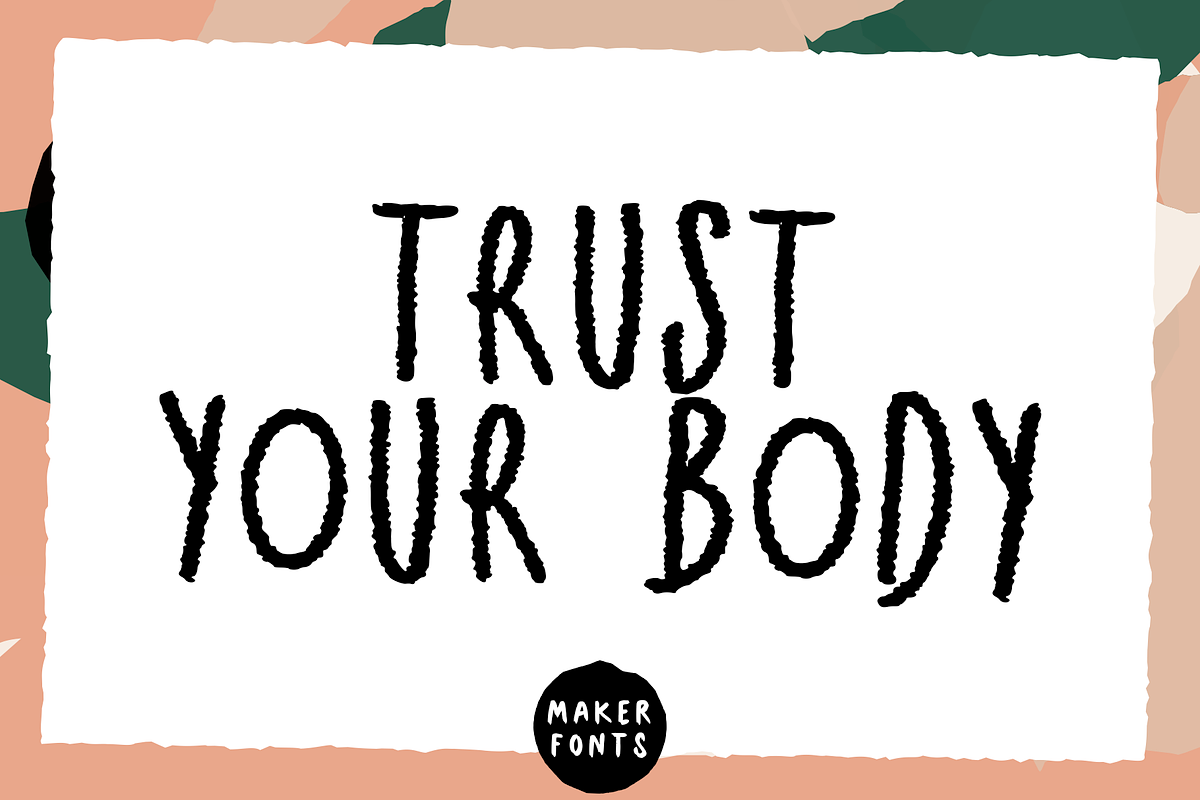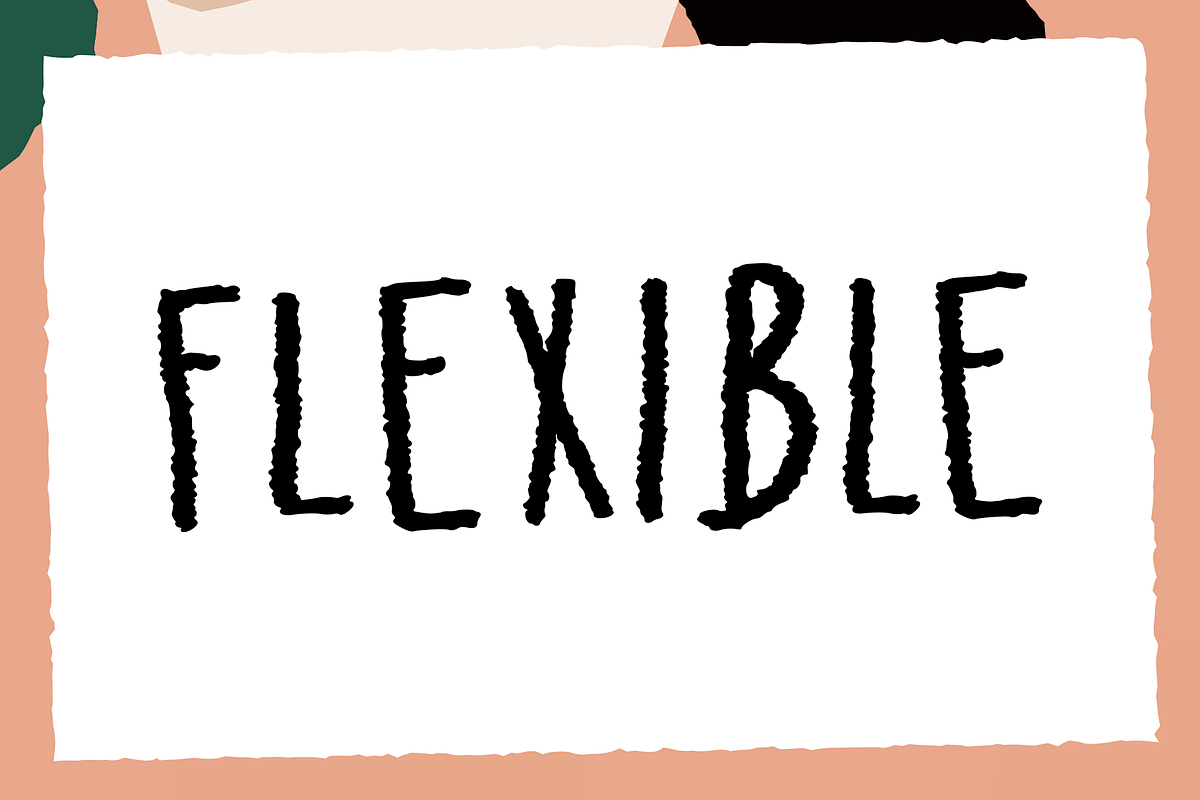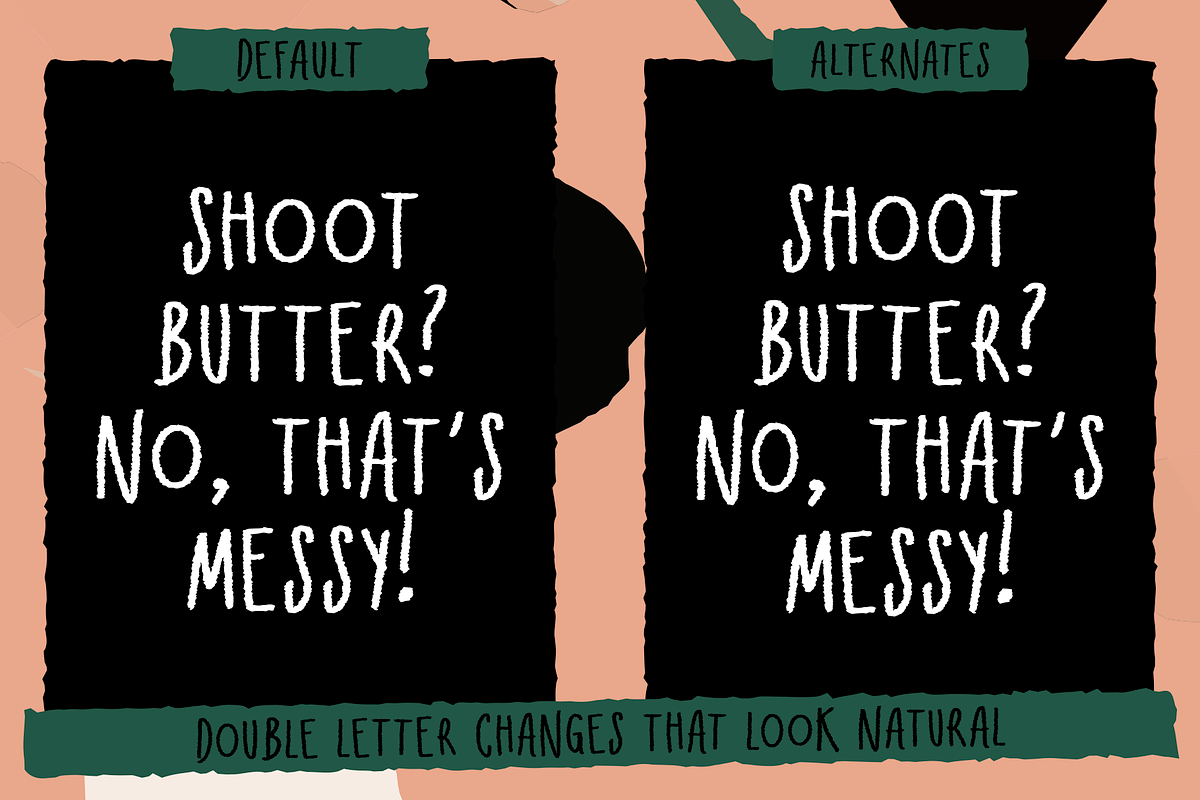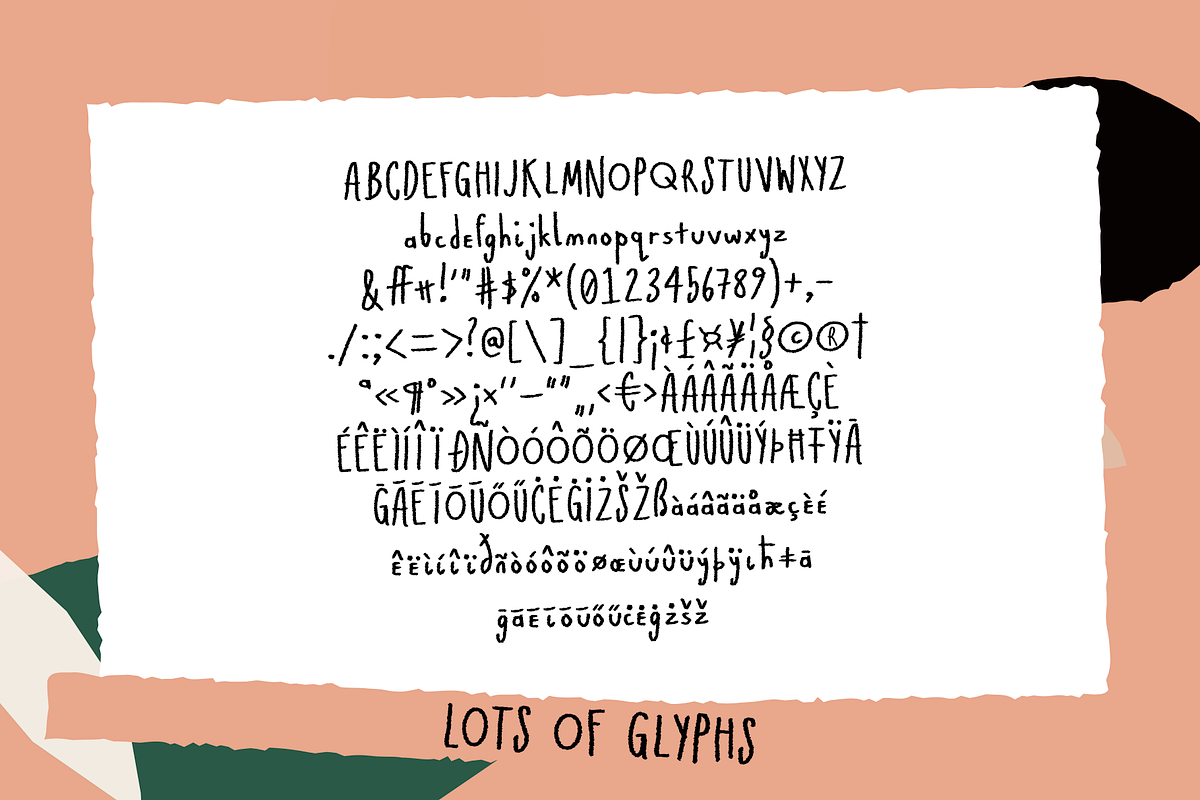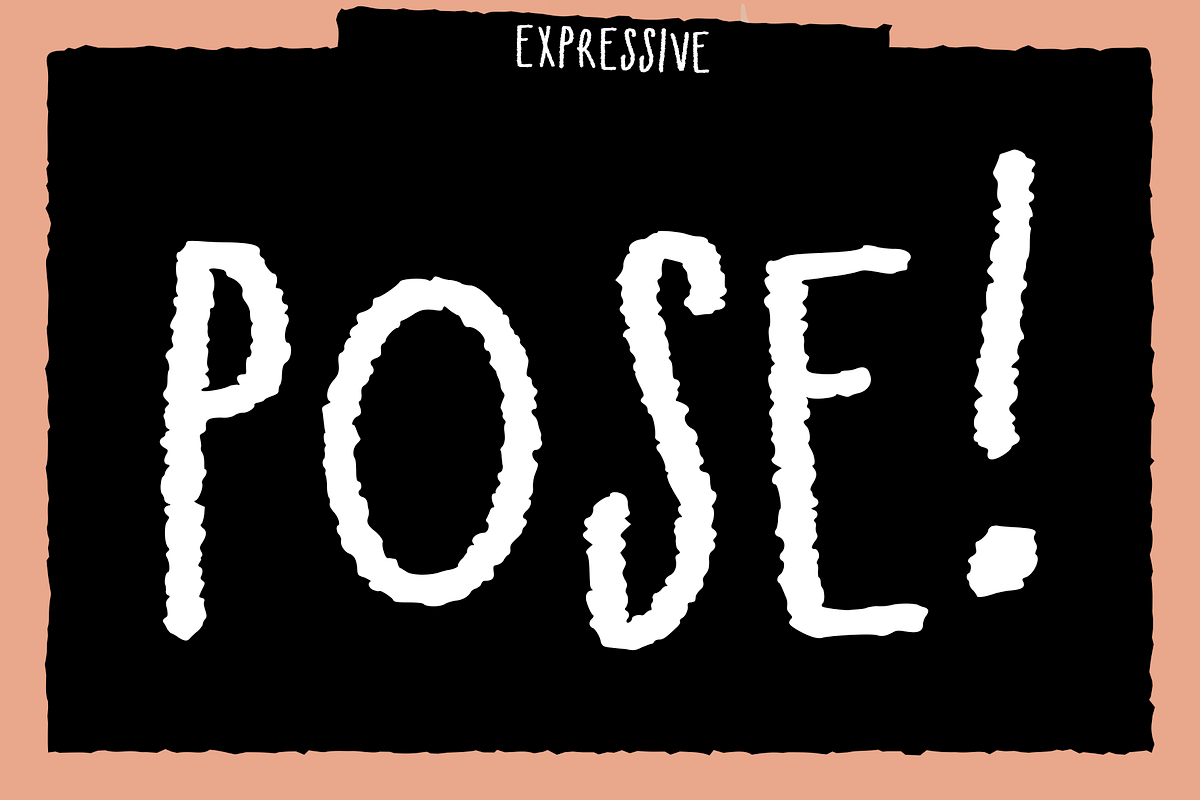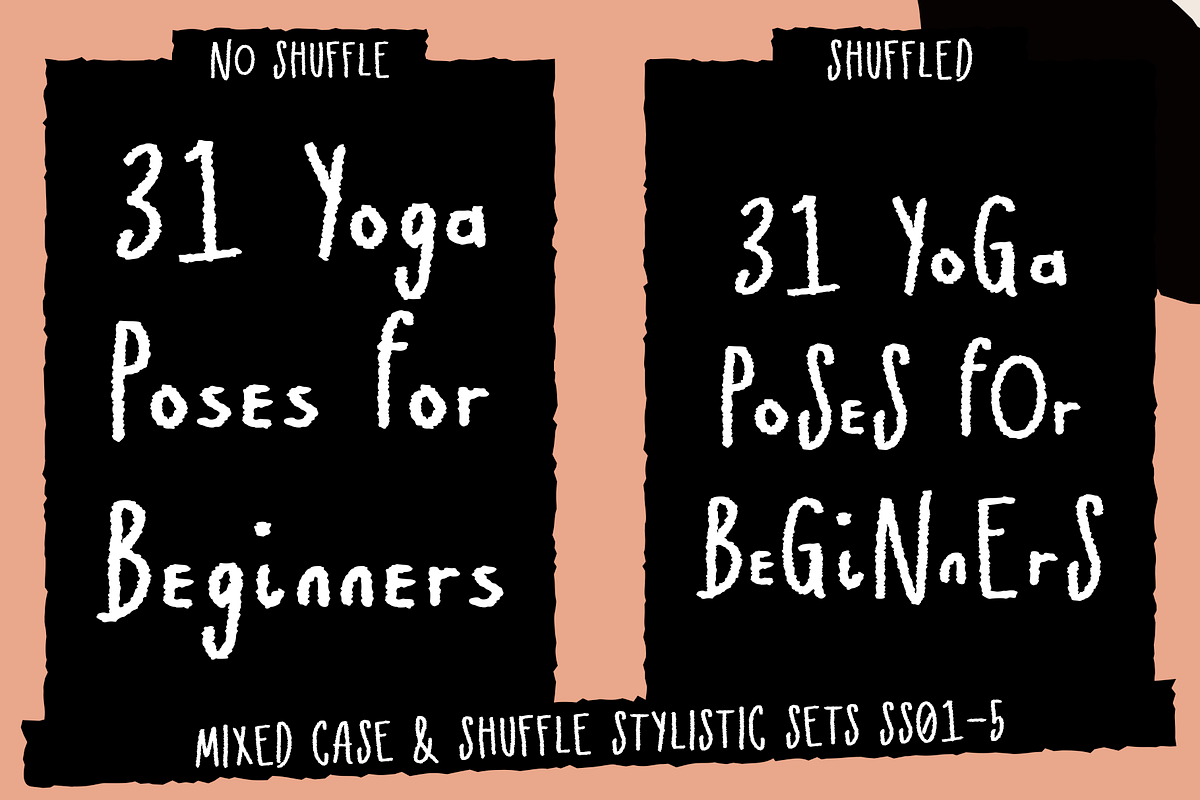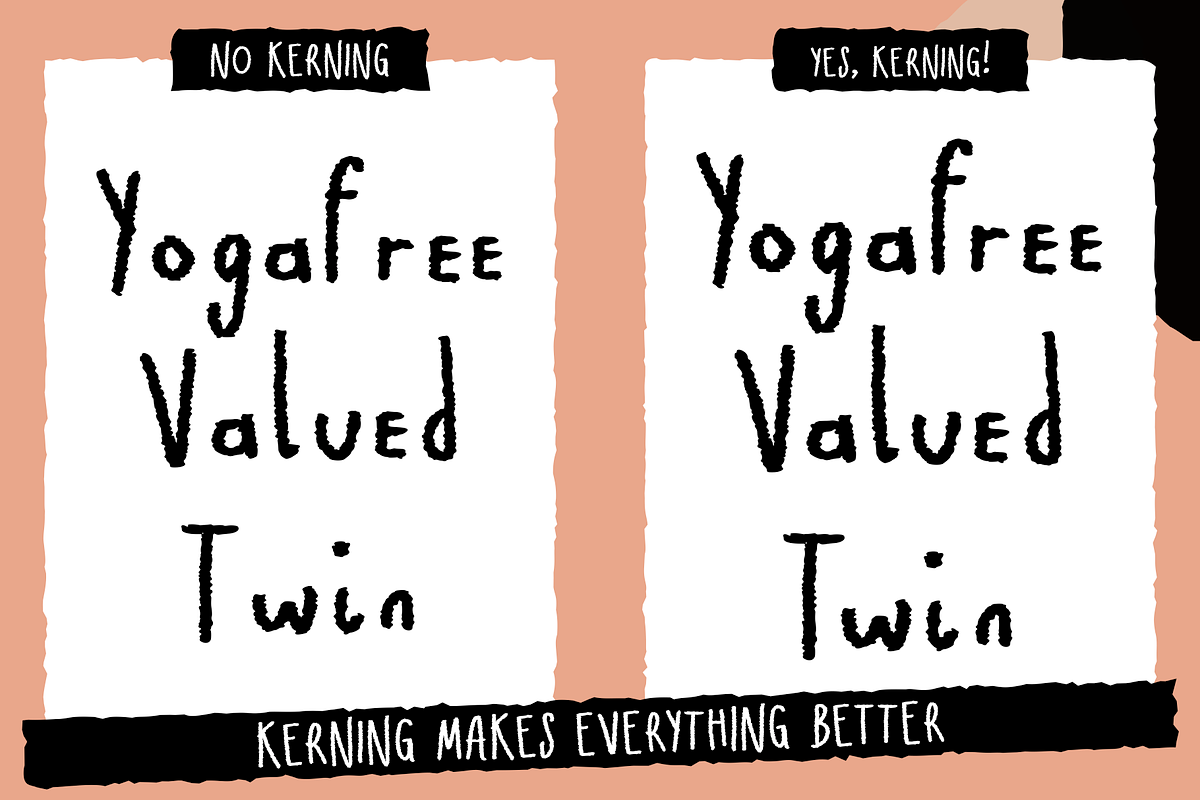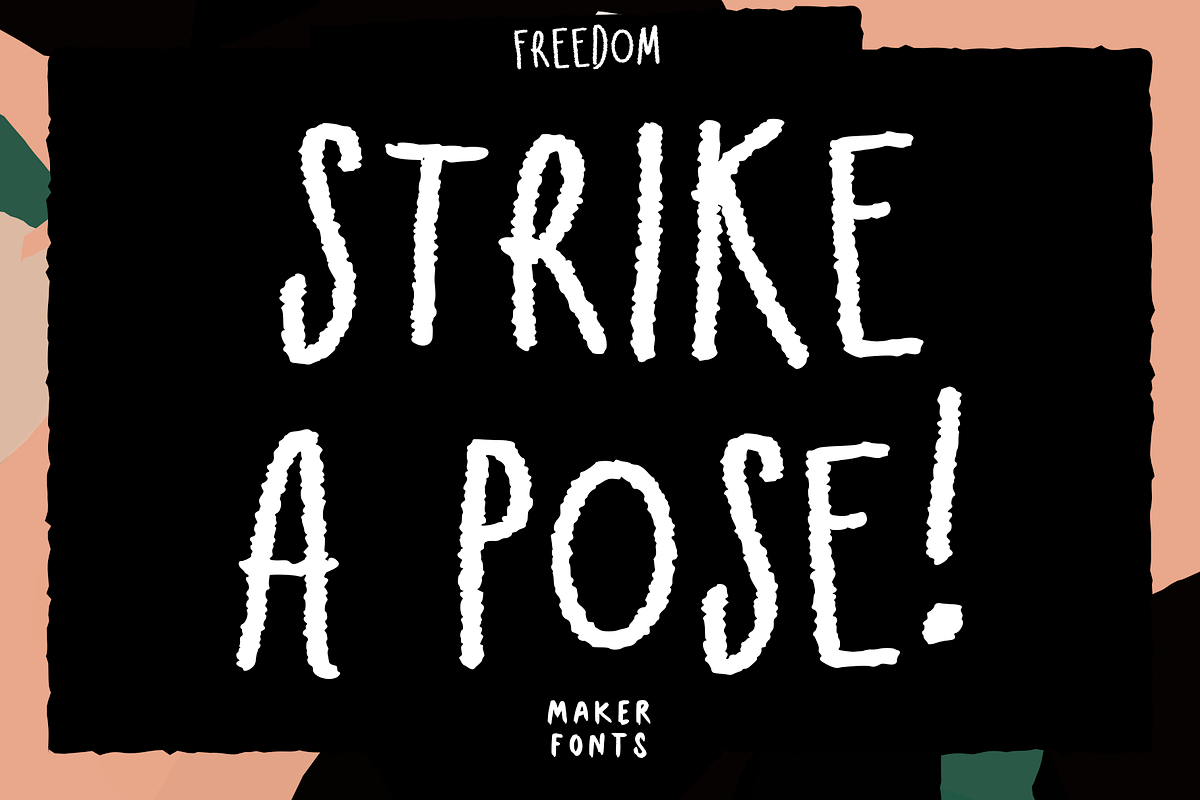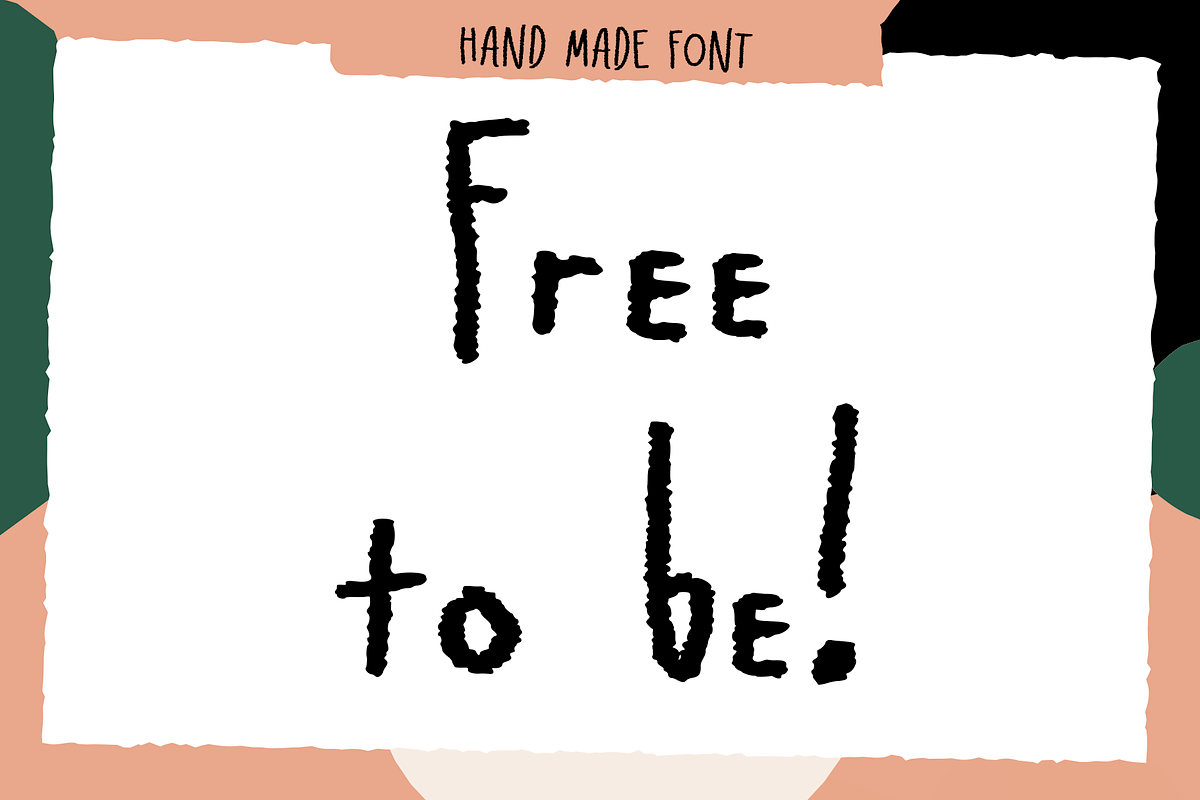
Yogafree Handmade Font
MF Yogafree is a relaxing handmade font from Maker Fonts that embodies freedom of expression.
Perfect for greetings cards, packaging, and any use where a bold yet personal touch is needed. Let MF Yogafree bring freedom of expression in your next project!
- Large Western Character Set
- Lots of Glyphs
- Kerning
- Contextual Alternates
- Stylistic Sets ss01–ss05